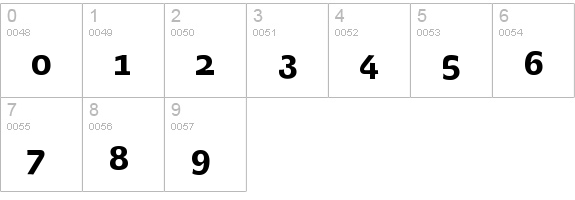
SpotkaBold Font Details
SpotkaBold font is a modern and versatile typeface that exudes elegance and sophistication. Its bold and striking design makes it perfect for creating eye-catching headlines, titles, and branding materials. With its clean lines and balanced proportions, SpotkaBold font adds a touch of professionalism to any project. The best part? SpotkaBold font is available for free download at FontsMarket.com. You can easily access this stunning font and enhance your designs with its timeless appeal. Whether you're working on a website, advertisement, or print material, SpotkaBold font will elevate your work to the next level. Don't miss out on this incredible opportunity to add a touch of class to your projects with SpotkaBold font.